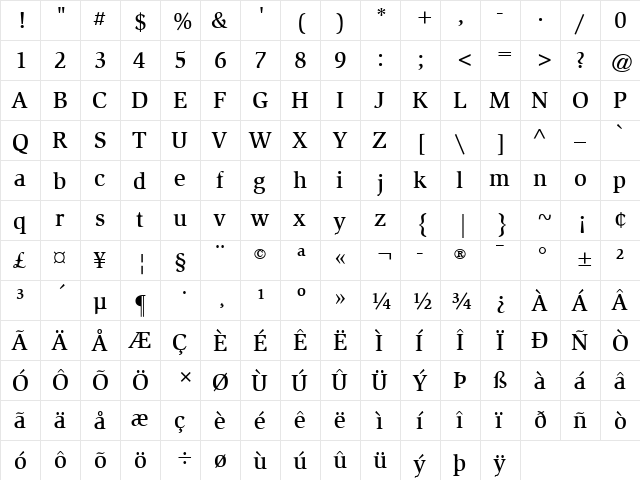
Slimbach LT Medium Regular
Design Context for Slimbach LT Medium Typeface
Slimbach LT Medium takes a measured approach to typography — its balanced proportions and neutral character make it a reliable workhorse for both digital and print work. The delicate stroke weight brings airiness and refinement to layouts.